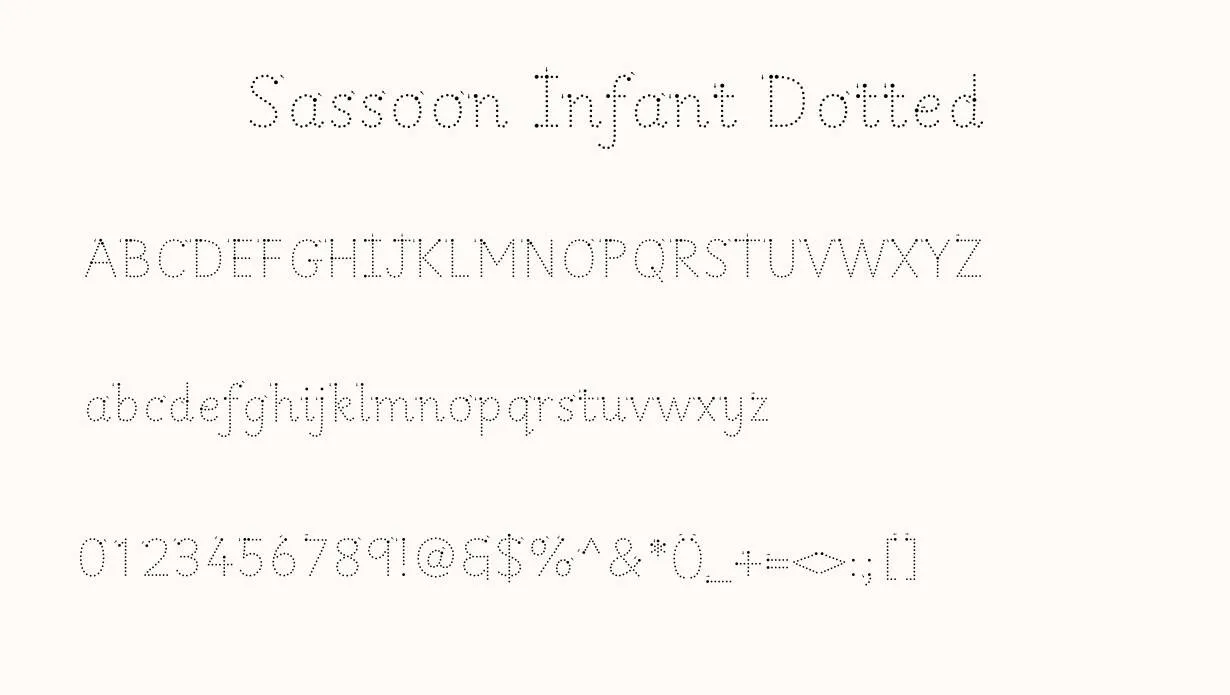
Sassoon Infant Dotted Font is designed with young learners in mind, featuring dotted lines for early childhood development. Commonly used in educational materials, this font ensures clarity and engagement for young readers.
Designer | Rosemary Sassoon & Adrian Williams |
Style | Handwritten |